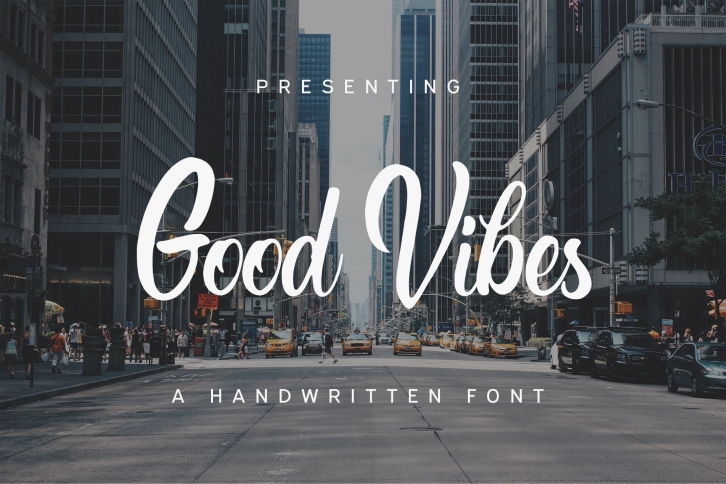
Good Vibes is a simple yet stylish brush script font.
With the Good Vibes typeface you can create a variety of designs such as:
- DIY projects
- greeting cards
- labels
- posters
- wall art
- quotes
- branding & logo design
- packaging
- websites
- signs
- window art
- tags
- photo/photography overlays
- wedding designs
- social media posts
- advertisements
- menus